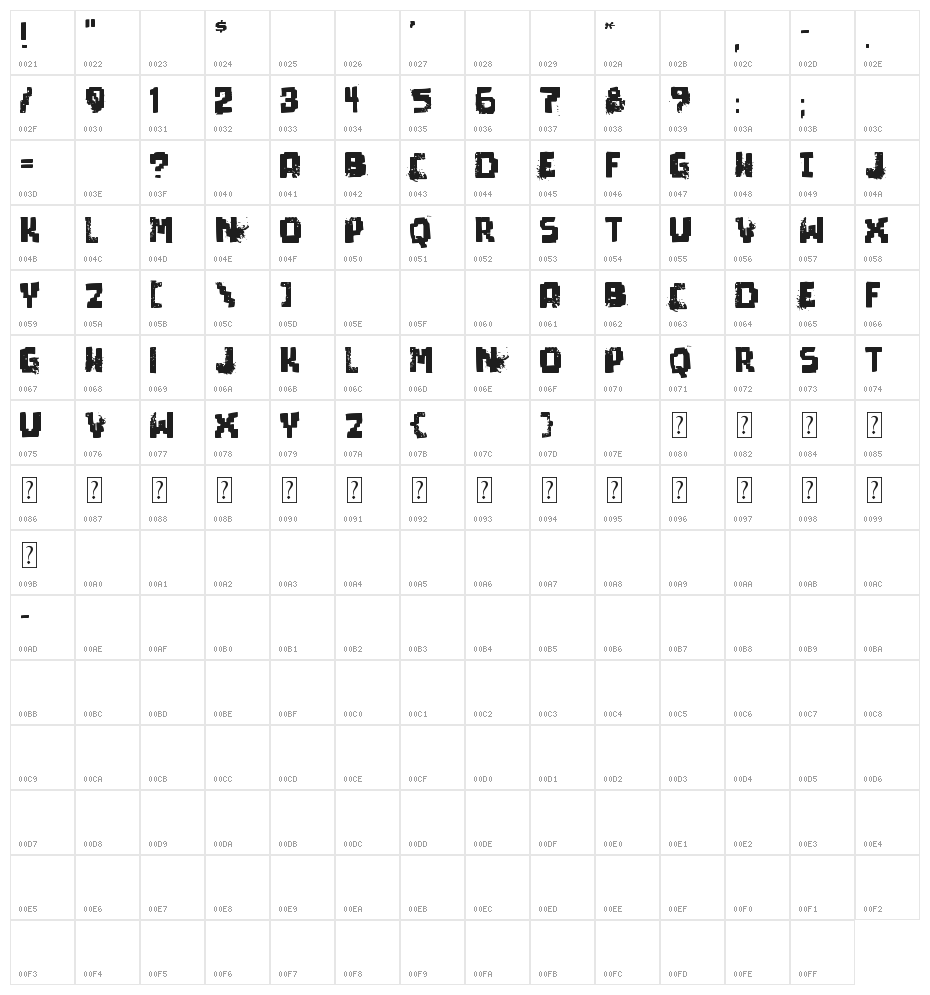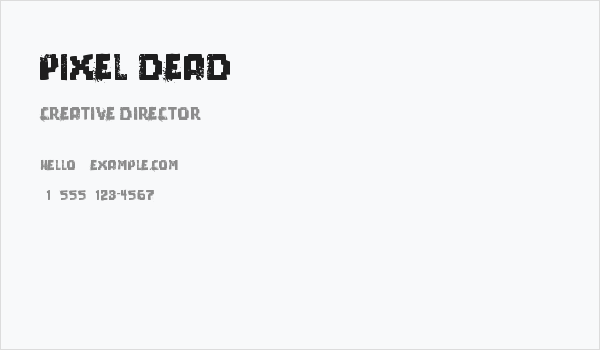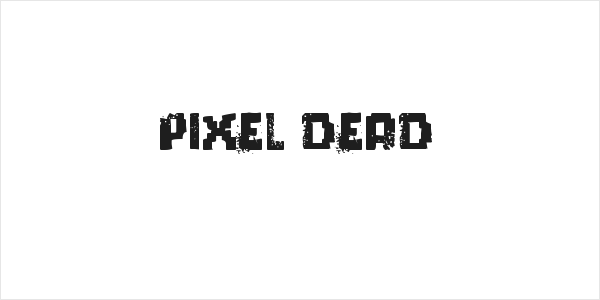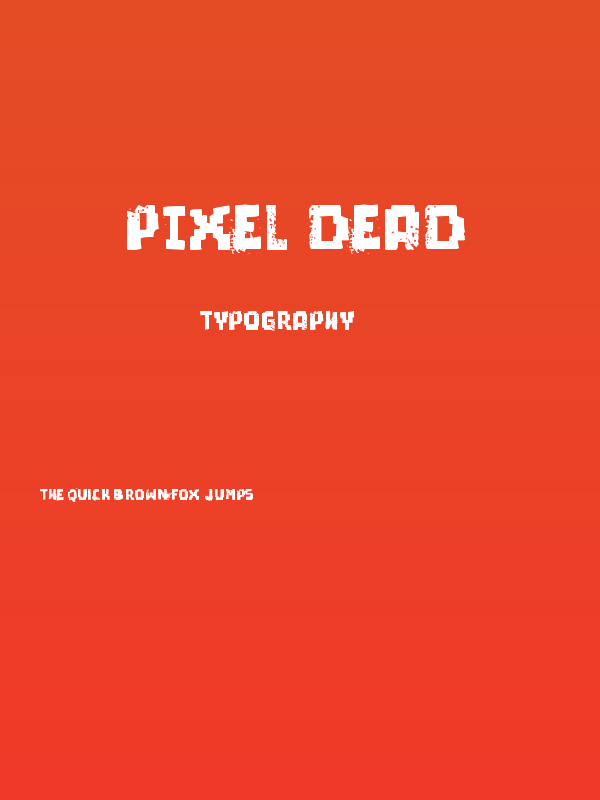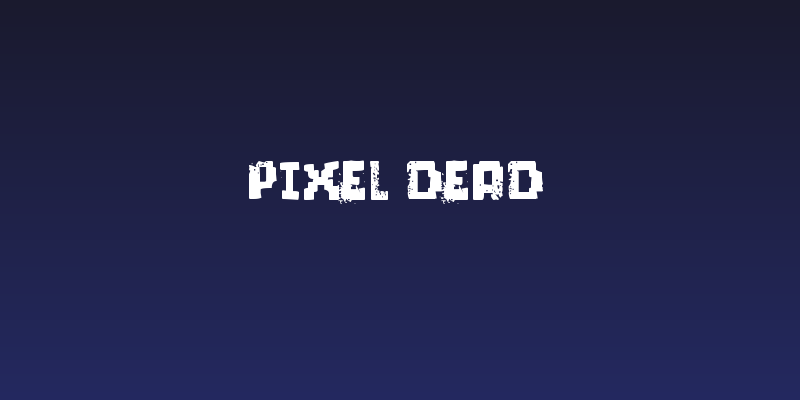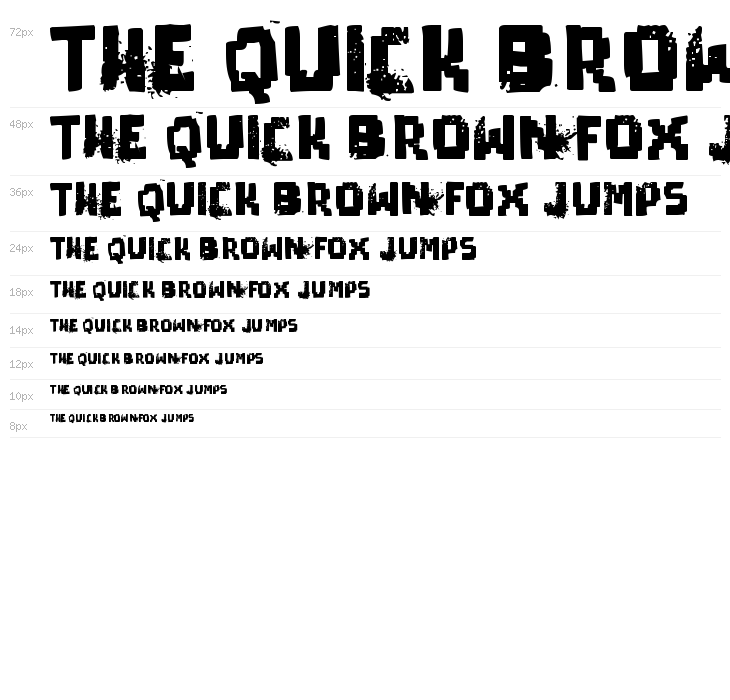
pixel dead Font
pixel dead Description
This font features a distressed, grunge aesthetic with a bold, blocky structure. The characters are heavily textured, giving them a worn, eroded appearance that suggests decay or digital glitching. Each letter and number is distinct with rough edges and irregular shapes, creating a chaotic yet cohesive look. The font maintains a consistent height and width across characters, ensuring readability despite its distressed style. It is ideal for projects that require a rugged, edgy feel, such as posters, album covers, or video game graphics.
| Overall Style | Grunge, Edgy, Distressed |
| Proposed Projects | Ideal for posters, album covers, video game graphics, and edgy branding. |